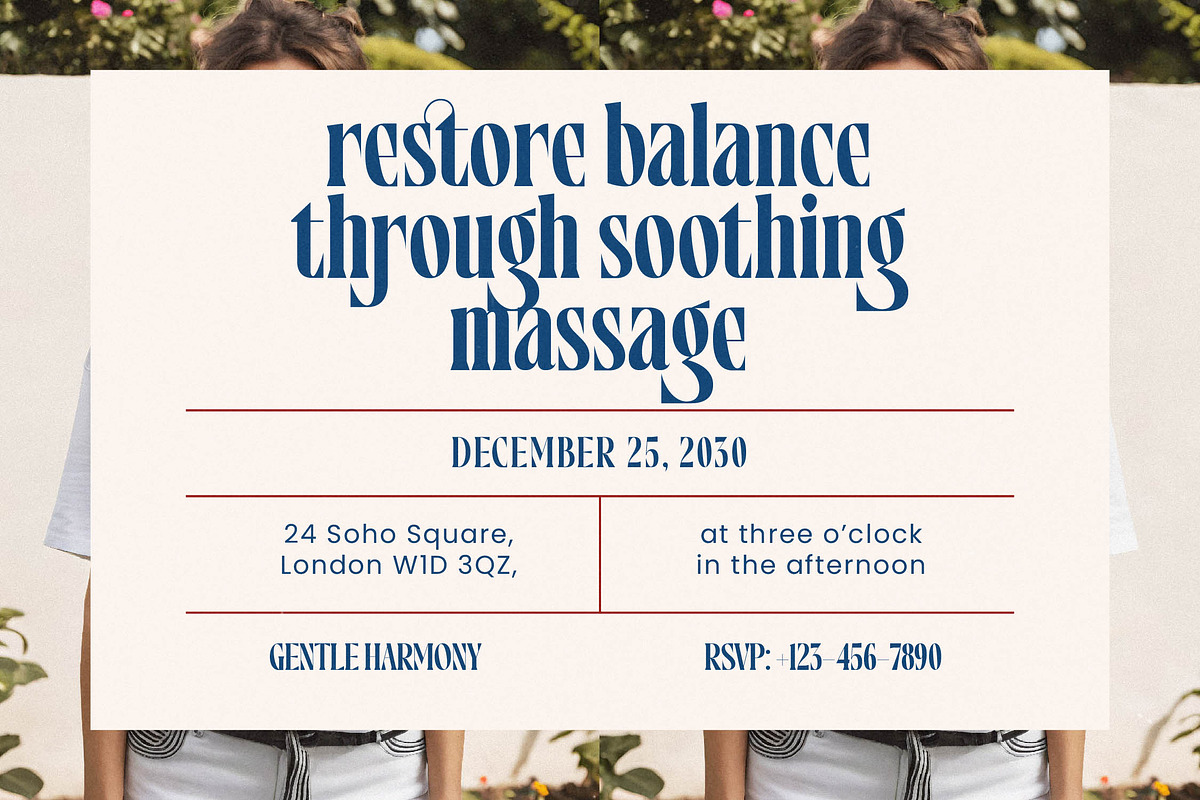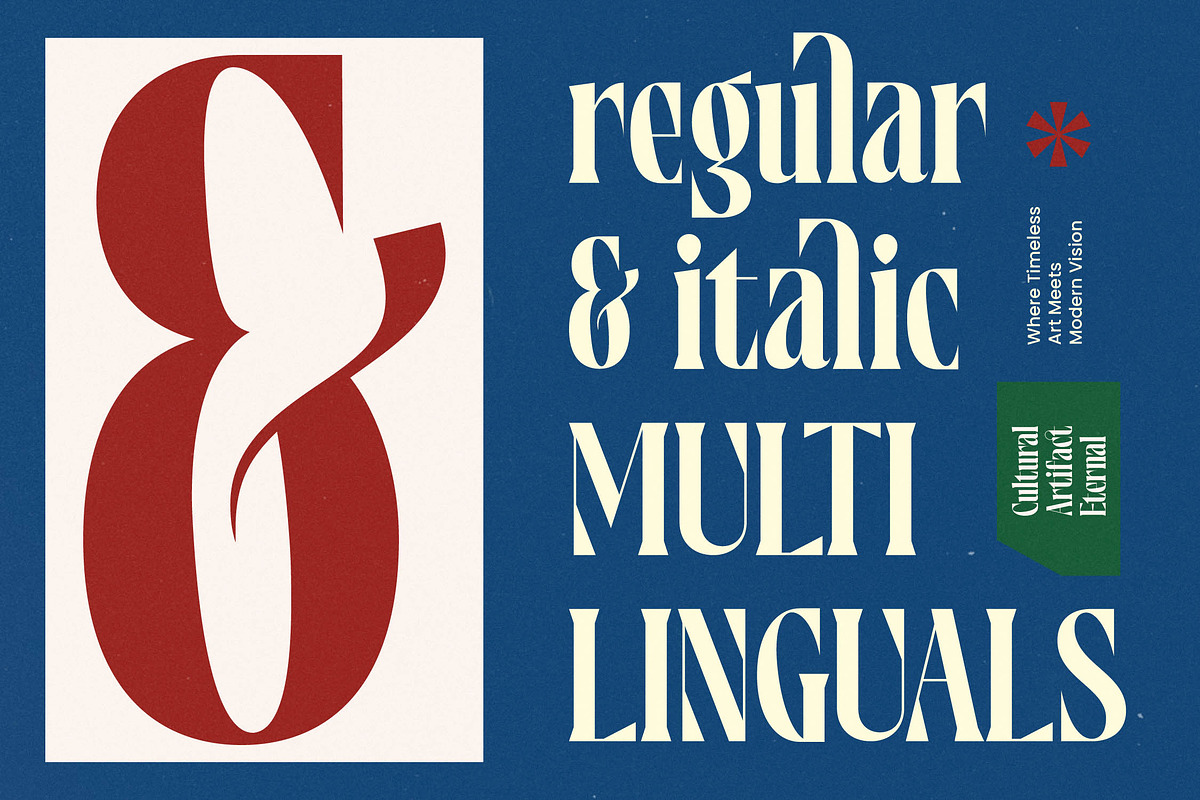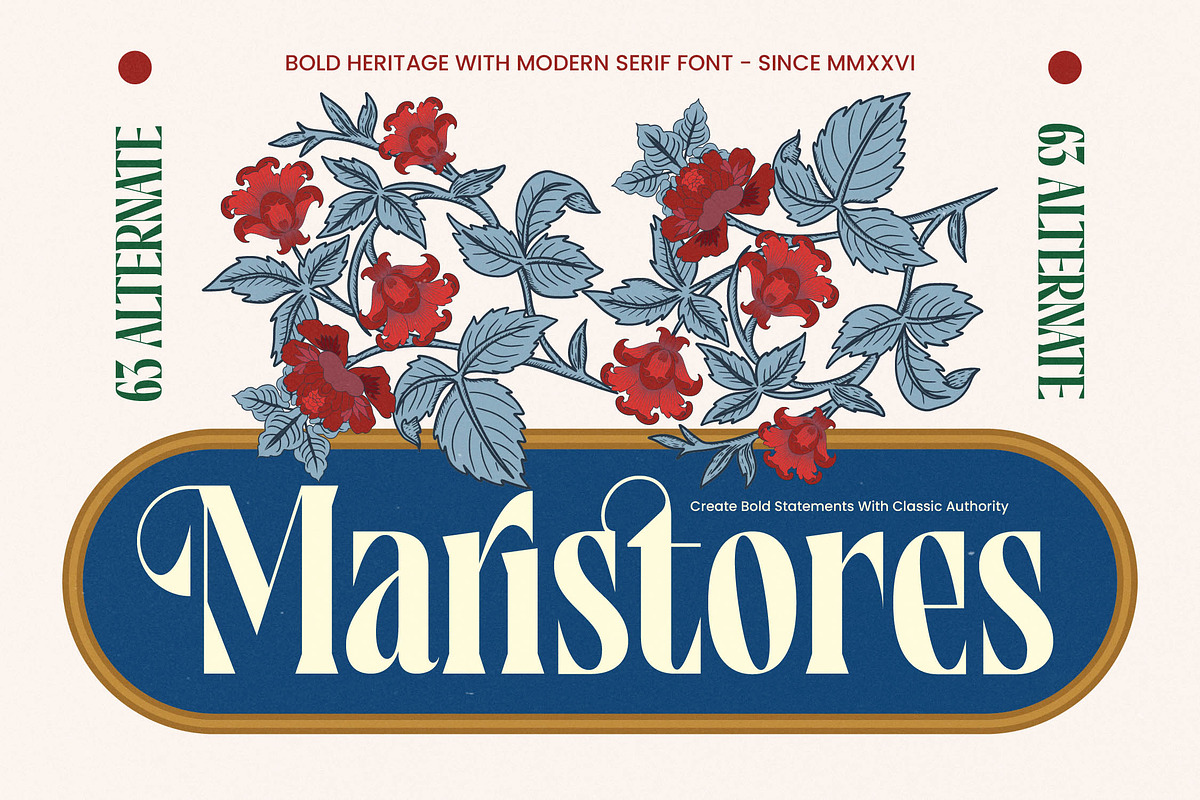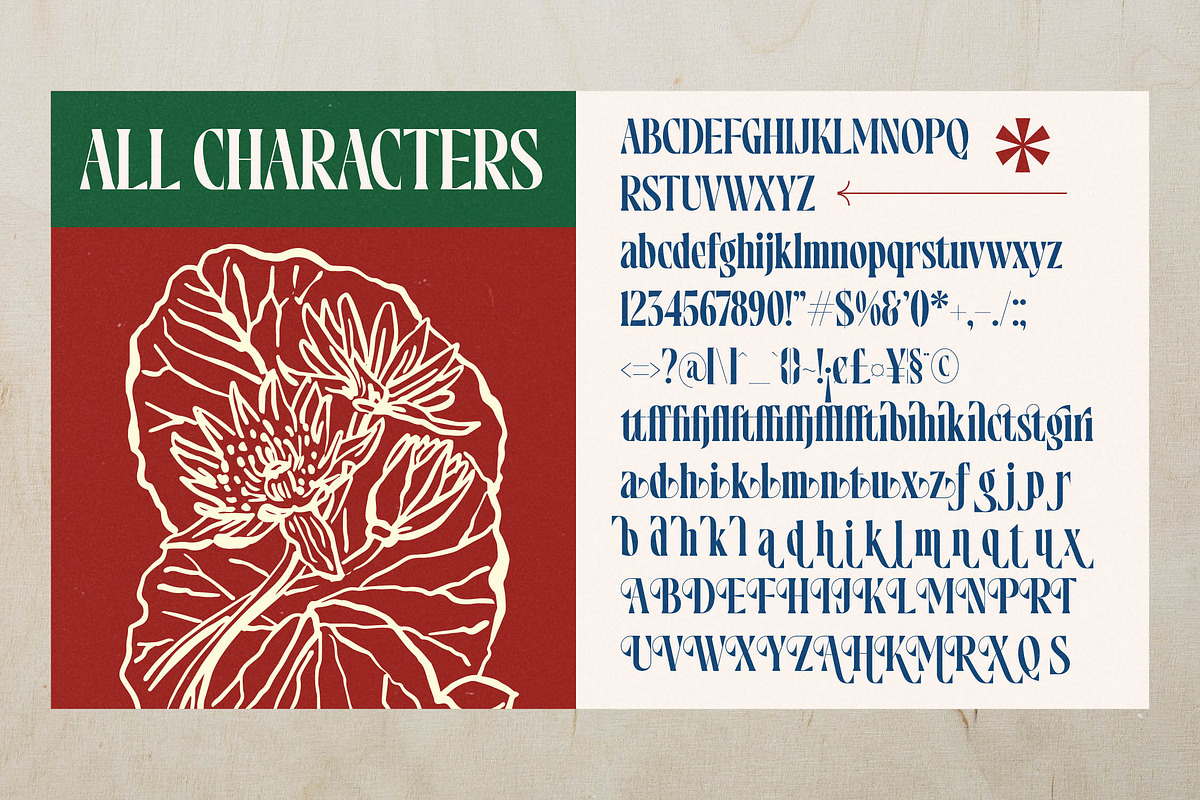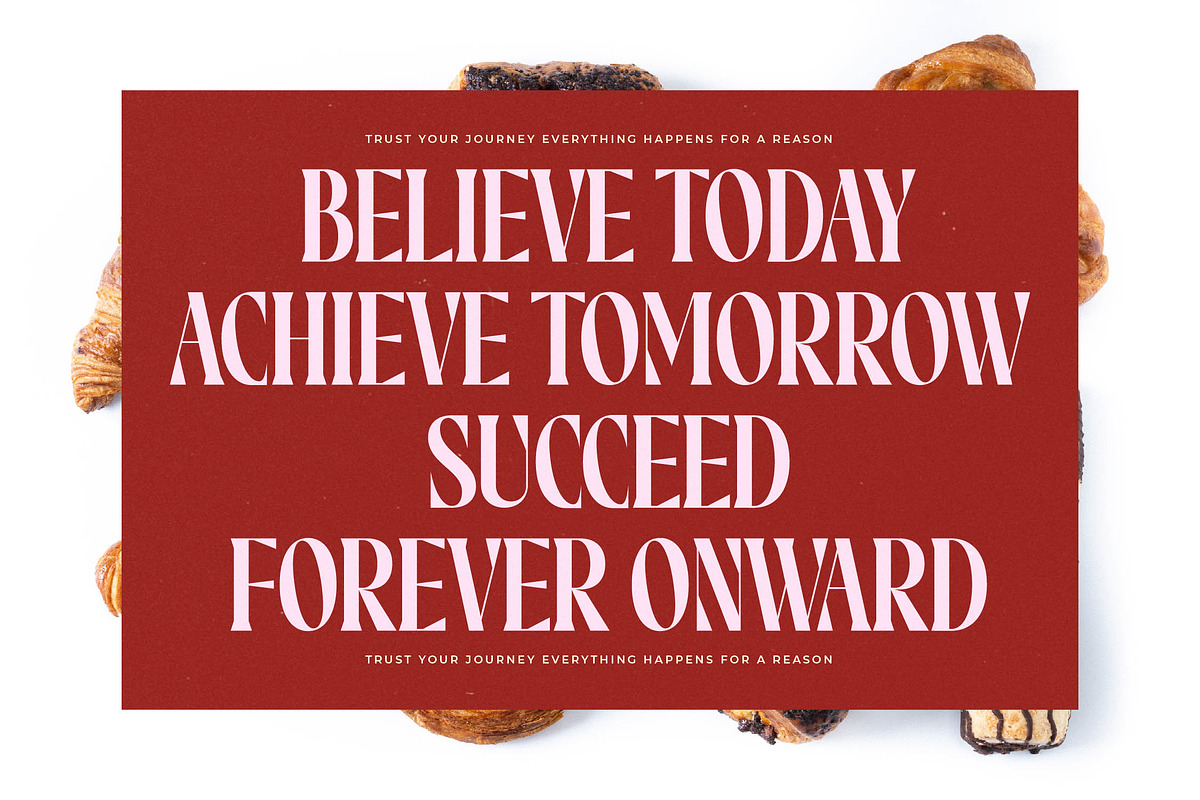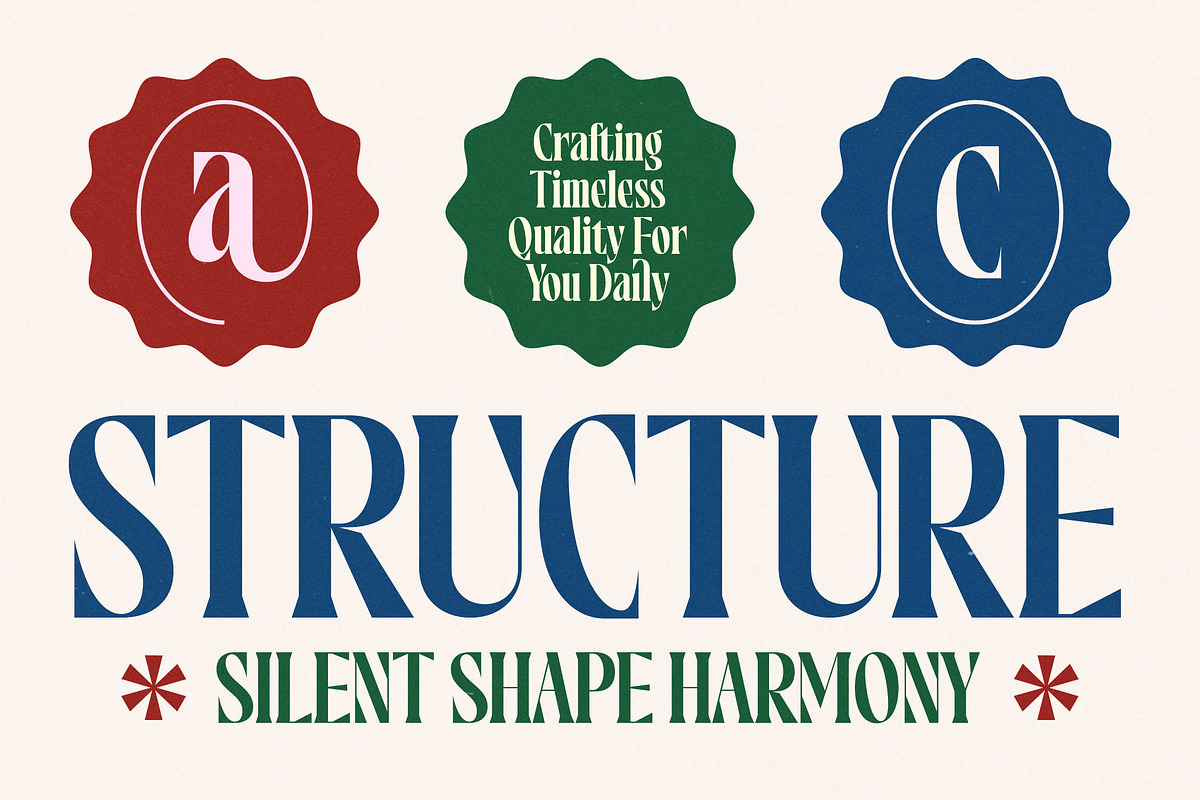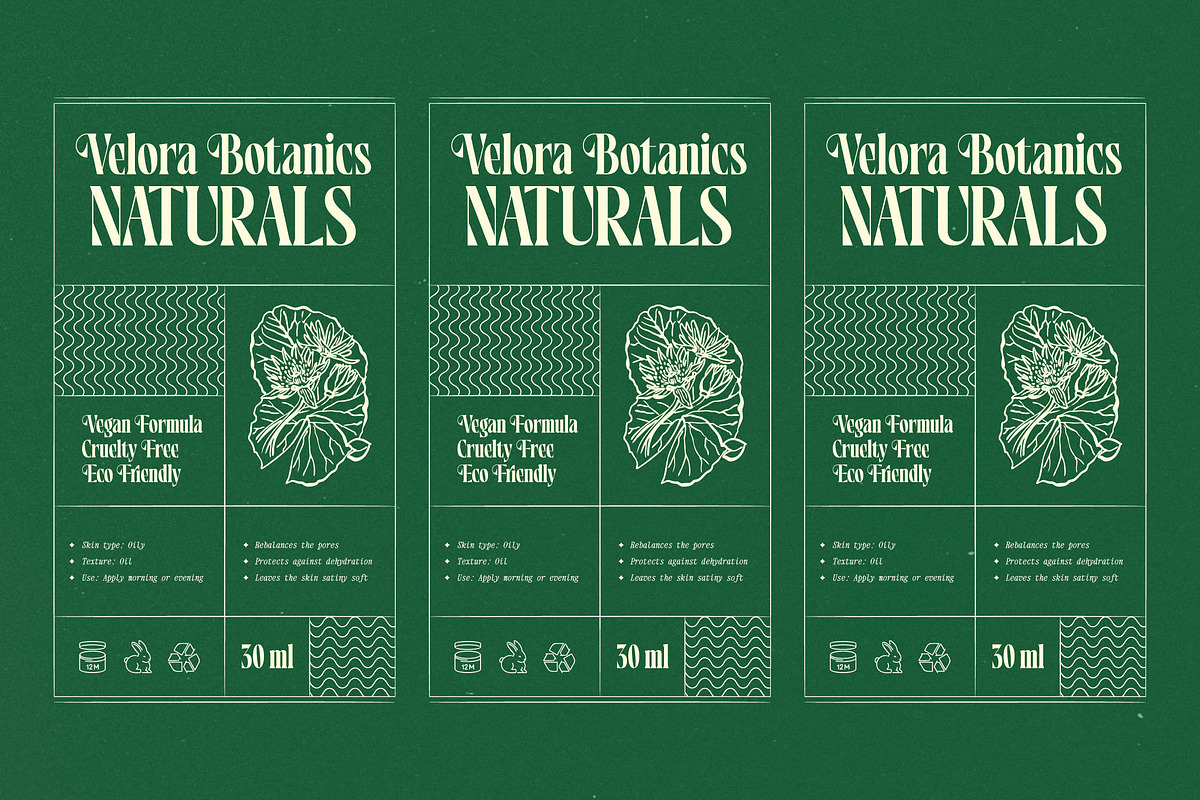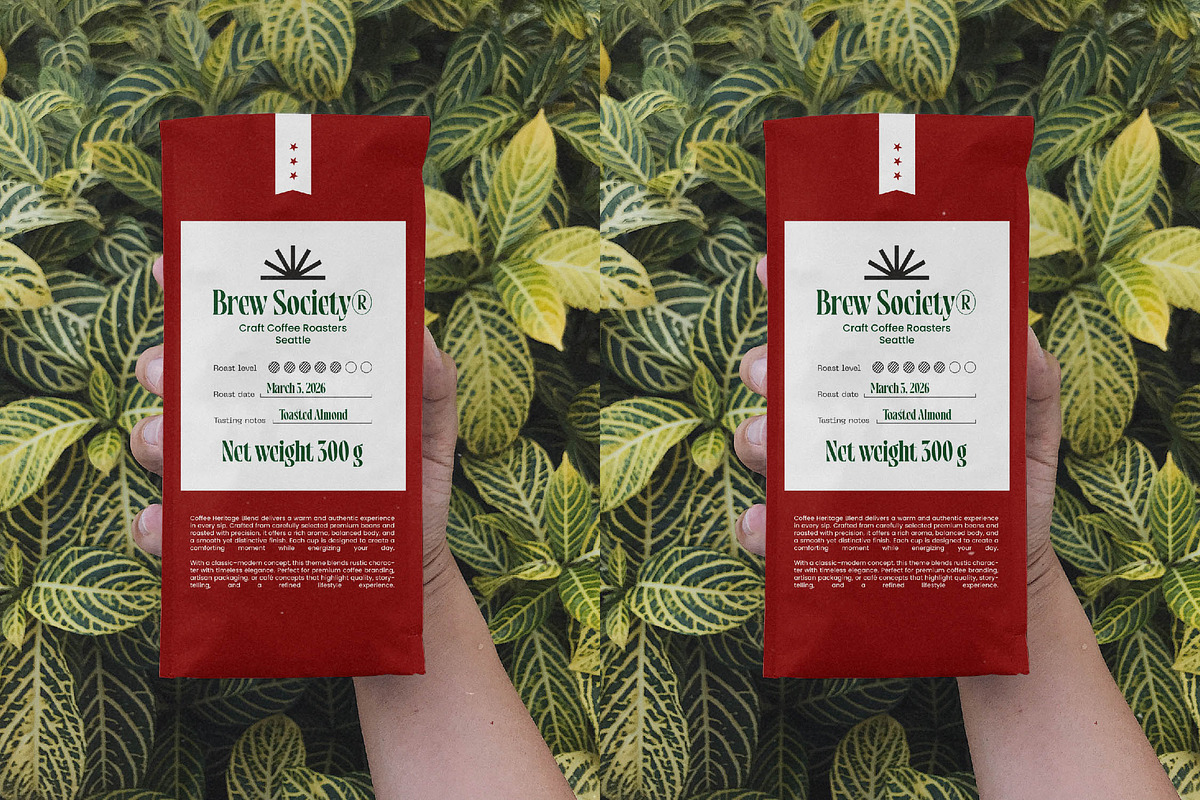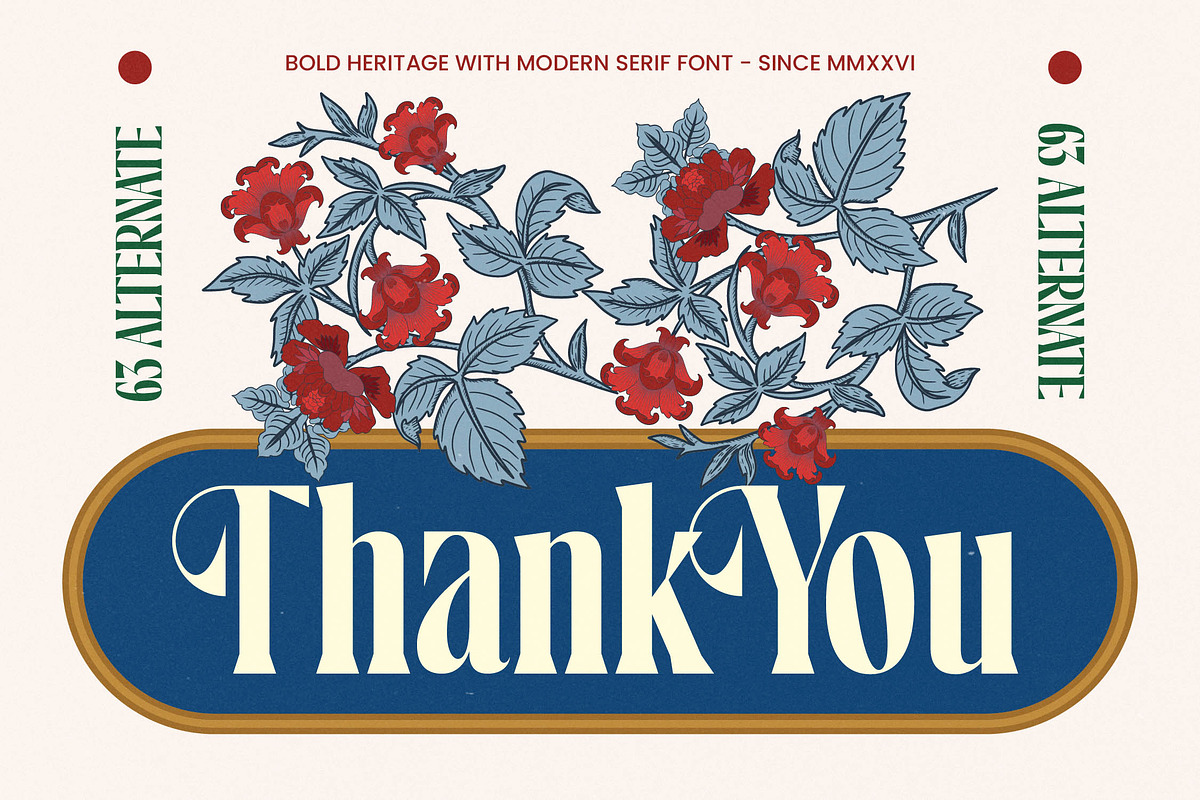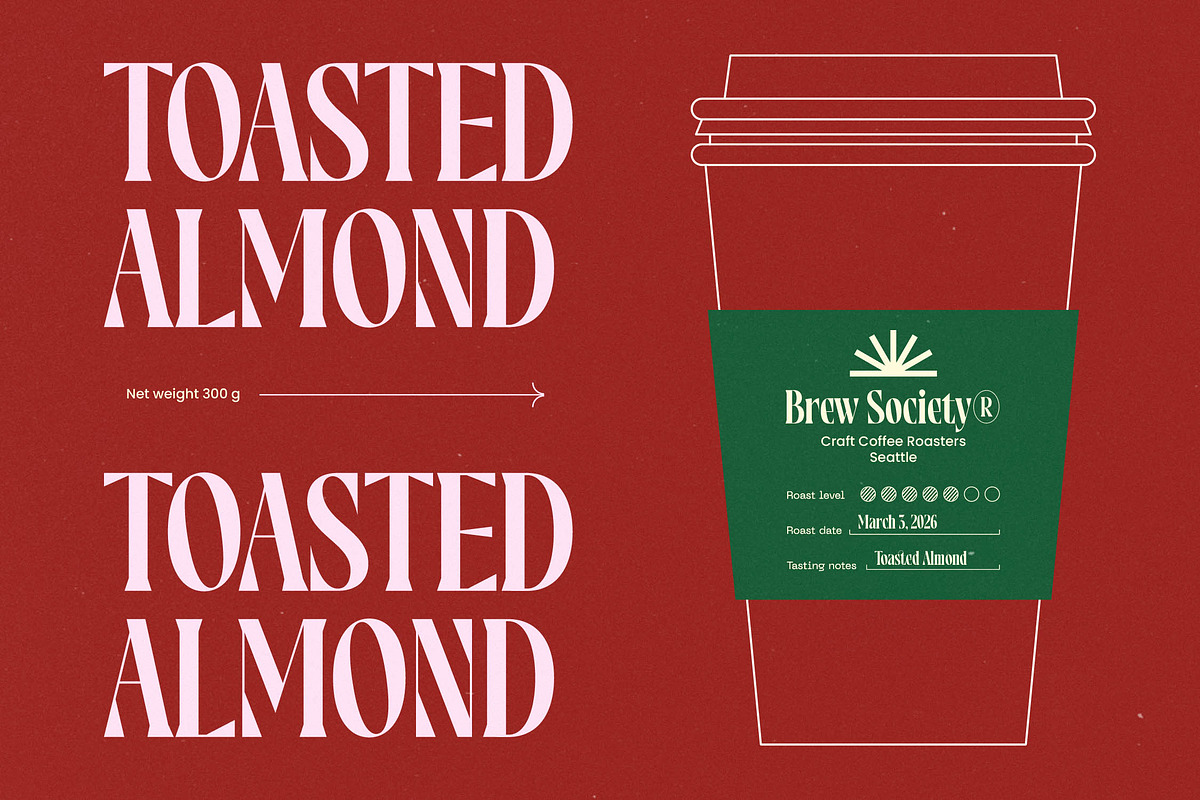
Maristores Modern Serif Font
Maristores - Modern Serif Font , Maristores brings a breathtaking balance of timeless heritage and sharp, contemporary sophistication to your creative canvas. This font is a love letter to high-end aesthetics, designed to command attention with every stroke through its unique blend of classic roots and modern flair.
Inspired by the rich textures of botanical illustrations and the classic authority of old-world storefronts, this typeface evokes an atmosphere of established luxury. It breathes the air of a secret garden meeting a high-fashion runway, blending organic curves with rigid, architectural stems to create a truly memorable visual experience.
As a modern serif display, this typeface is engineered for maximum branding impact, offering a level of luxury typography that is often sought but rarely captured. The high-contrast serif design ensures that every headline resonates with a polished, professional tone, making it the ultimate editorial font for creators who refuse to blend in with the ordinary.
Capturing the essence of the current modern serif trend, this typeface responds directly to the industry's shift toward character-driven typography. Designers are increasingly looking for editorial display fonts that tell a story, and this family provides the unique visual language needed to stand out in a saturated digital landscape while maintaining timeless appeal.
From the precision required in logo design to the expansive needs of global branding, this typeface excels across diverse platforms. It is the perfect choice for high-end packaging, romantic wedding stationery, and the fast-paced world of fashion magazine layouts where elegance and readability are non-negotiable.
Beyond its stunning visuals, the font is packed with technical versatility including a wide array of ligatures and decorative alternates. Users can further customize their designs with expressive swashes and enjoy full multilingual support with a comprehensive set of international characters for worldwide accessibility.